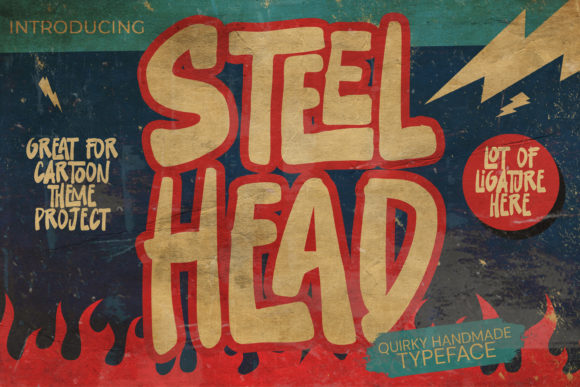
Behold, Steel Head Font – the epitome of urban grit and edgy expression. This display font is not for the faint-hearted. It oozes an irresistible allure with its bold, brushed strokes reminiscent of captivating street art. Immerse yourself in the raw energy and rebellious spirit of Steel Head. Let your designs scream with personality, whether it's a captivating business flyer, an attention-grabbing t-shirt design, or a logo that demands remembrance.
From the creative minds at Gassstype Studio, Steel Head has been crafted with meticulous attention to detail. Its unique letterforms evoke a sense of movement and dynamism, making every project stand out from the crowd. With its distinct character, Steel Head adds a touch of intrigue to sportswear, logos, advertisements, and clothing designs. Elevate your designs to the next level with Steel Head – the font that dares to be different. Unleash your creativity and let Steel Head's edgy charm captivate your audience.
Step into a world where fonts are not just letters, but statements. Steel Head is more than just a font; it's an attitude, a reflection of your bold and fearless spirit. Embrace the raw power of Steel Head and watch your designs transform into masterpieces that resonate with your audience. Make a statement, break boundaries, and let Steel Head Font be your creative weapon of choice.